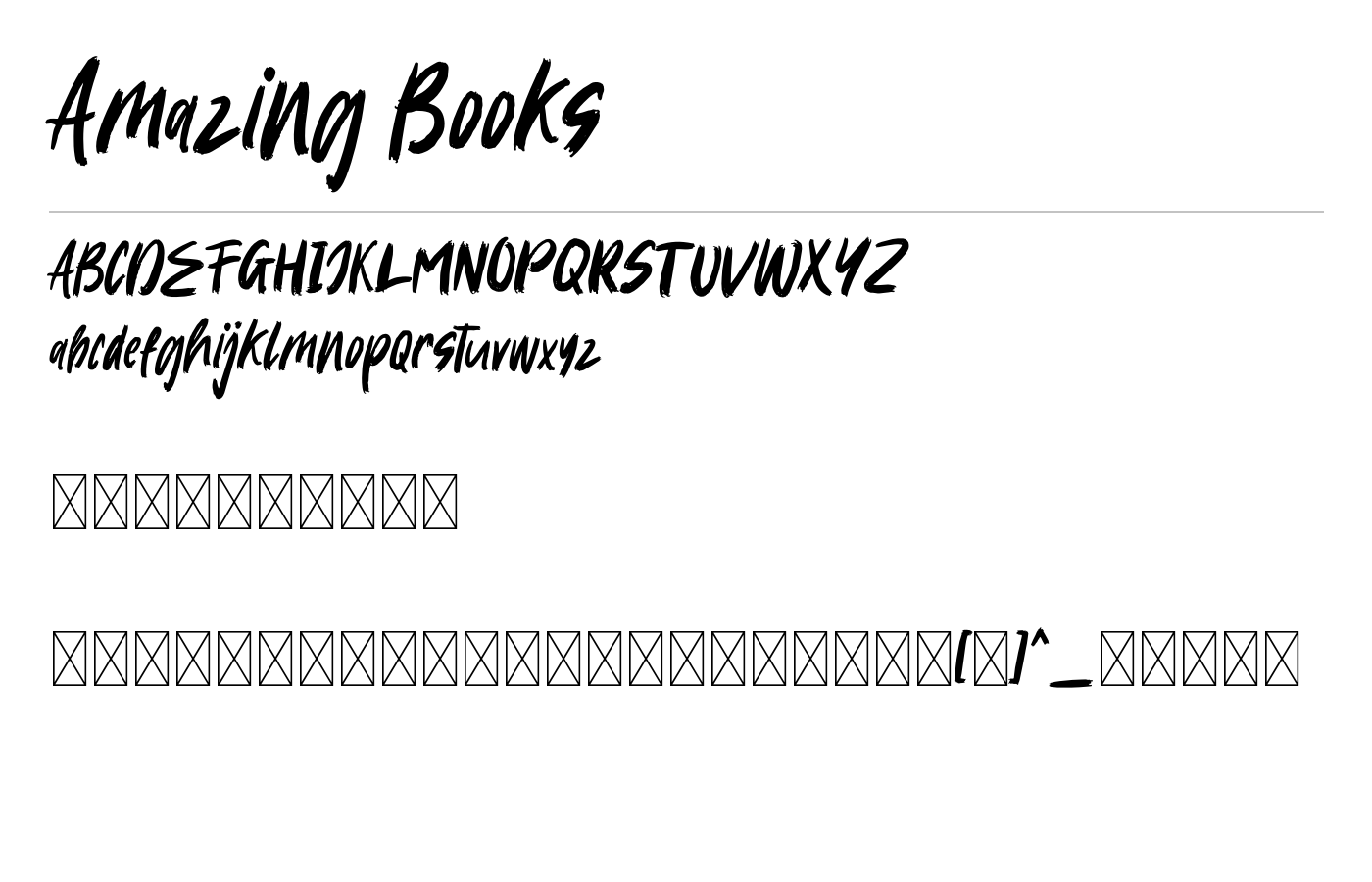
Amazing Books Font is a lively, brush-style handwritten font with bold, slightly irregular strokes that give it an energetic and casual feel. Its strong, dynamic letterforms work well for creative, informal designs like book covers, posters, and branding that want to convey personality and a handcrafted touch. This font is perfect for projects that need a playful yet impactful look, making text feel friendly and approachable.
Amazing Books Font
About Amazing Books Font
| Font family | Amazing Books Font |
| Designer | Ana Natalia |